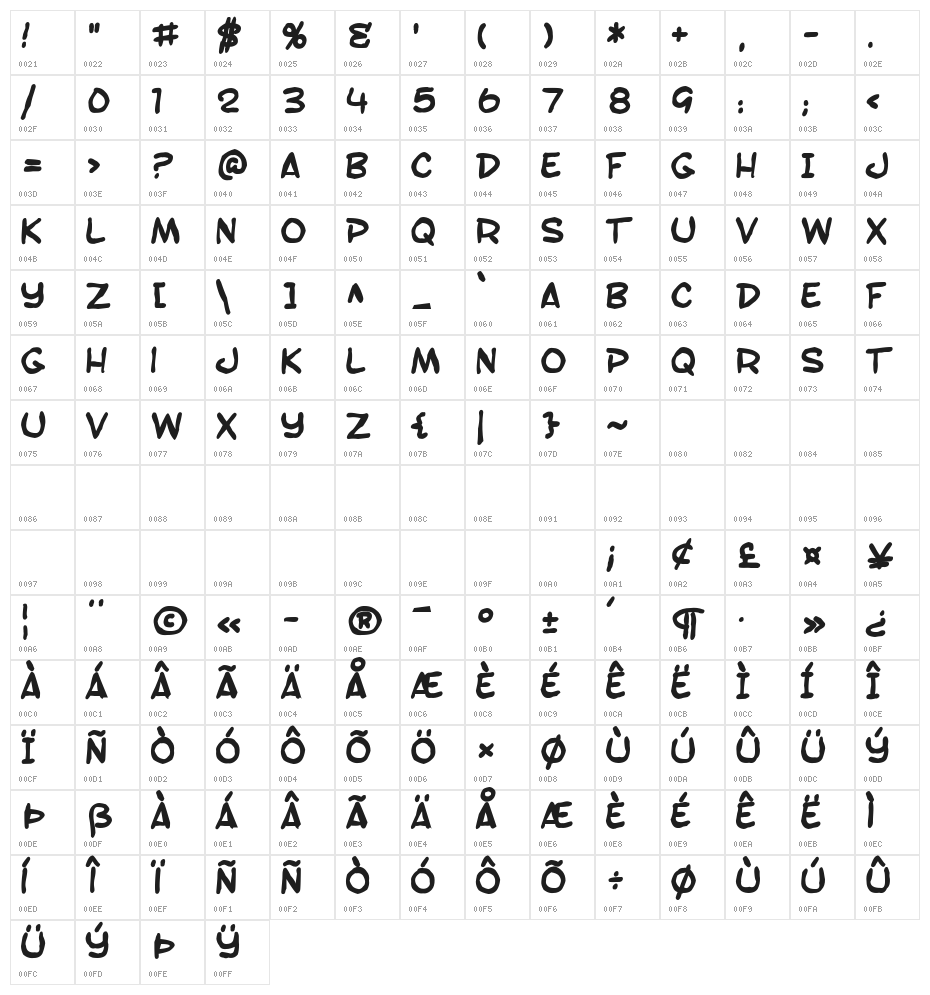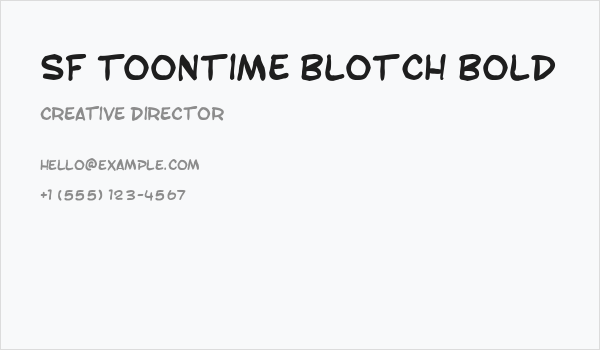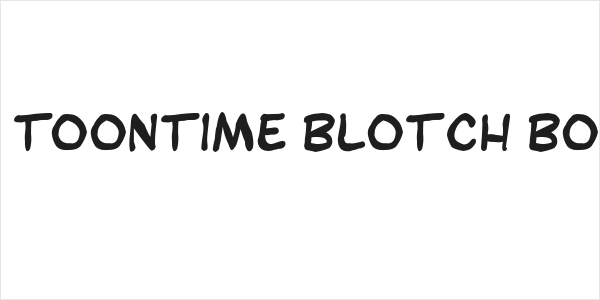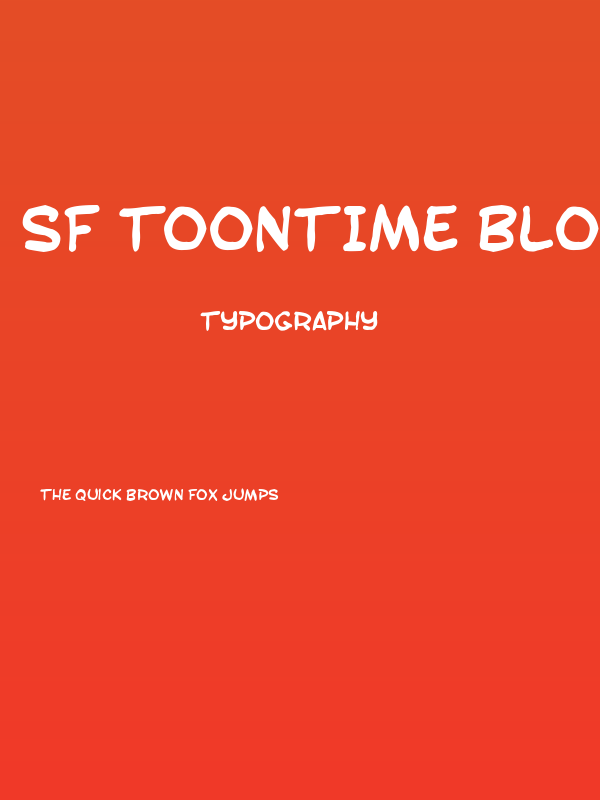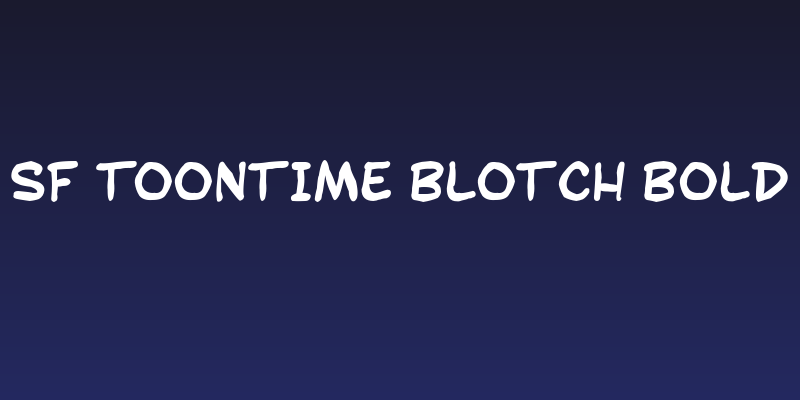
SF Toontime Blotch Bold Font
SF Toontime Blotch Bold Description
This font features a playful and bold style with a hand-drawn appearance, characterized by its uneven and slightly irregular strokes. The letters have a cartoonish quality, with rounded edges and a bouncy baseline that adds to its whimsical charm. The uppercase and lowercase letters maintain a consistent weight, contributing to a cohesive look. The numbers and special characters follow the same playful design, making it suitable for projects that require a fun and informal touch. Its boldness ensures readability while maintaining a unique and engaging aesthetic.
| Overall Style | Playful, Cartoonish |
| Proposed Projects | Ideal for children's books, comic strips, playful branding, and informal event invitations. |